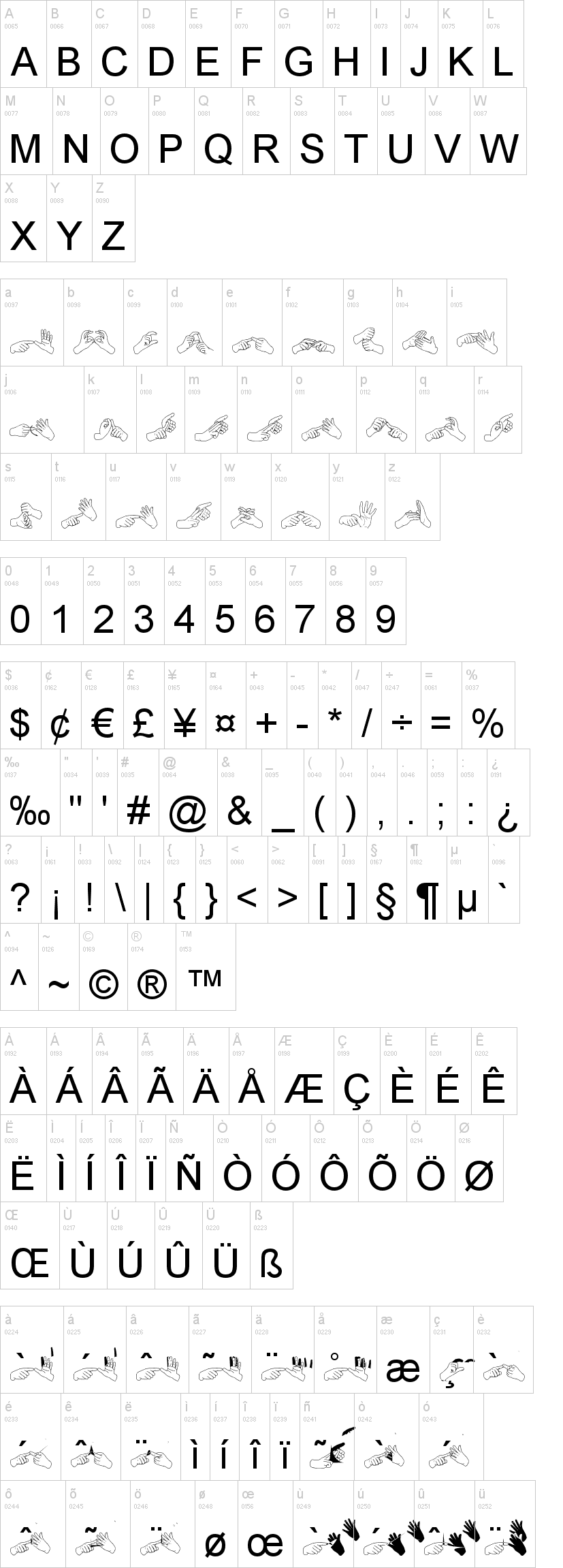
Note of the authorThis font was created for the hearing impaired using the AUSLAND Australian sign. It is free for personal use if there are any issues with accuracy please send an email to the author addman@bigpond.net.au